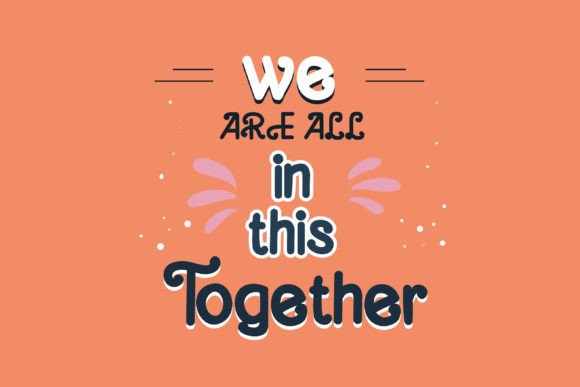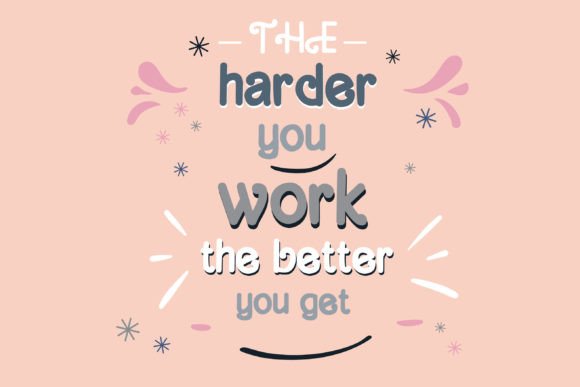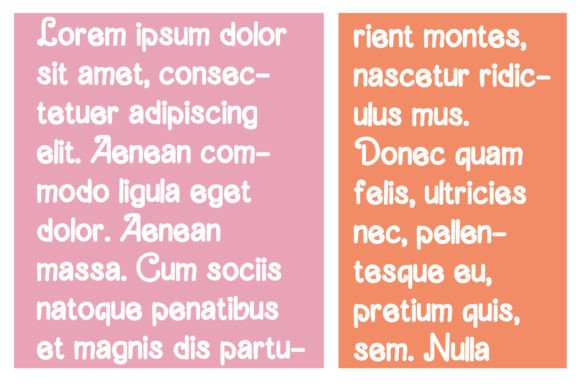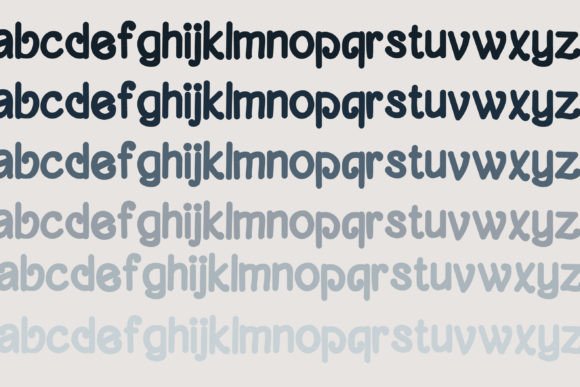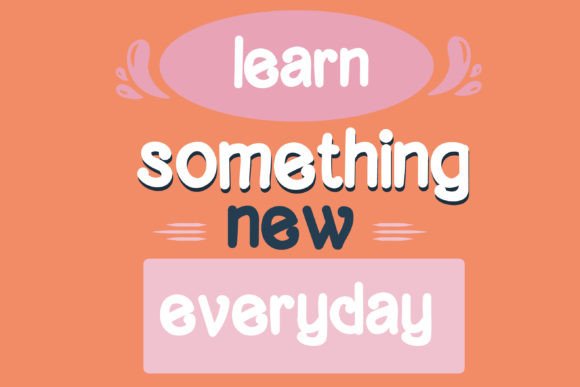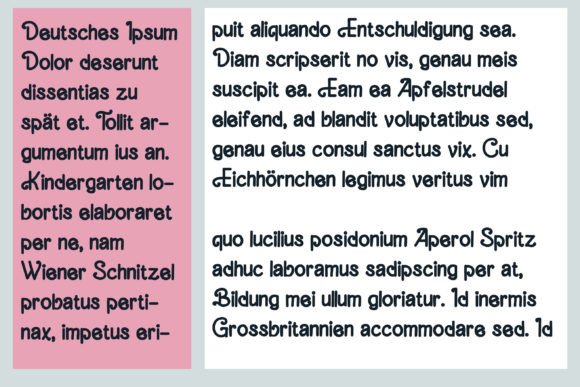
The Charm of Barbershop Font: A Handwritten Print with Flourished Uppercase
Are you a designer or crafter looking for a unique and eye-catching font to add a personal touch to your projects? Look no further than the Barbershop Font, a beautiful handwritten print with a flourished uppercase that’s sure to capture attention. In this article, we’ll explore the characteristics of this lovely font, its uses, and why it’s a great addition to your design toolkit.
What is a Handwritten Font?
A handwritten font is a typeface designed to mimic the look of handwriting. It’s often used to add a personal and informal touch to designs, making it perfect for projects that require a friendly and approachable feel. Handwritten fonts can range from simple and elegant to bold and playful, and the Barbershop Font falls into the latter category.
Characteristics of Barbershop Font
The Barbershop Font is a stunning example of a handwritten font with a flourished uppercase. Its bold and cursive design makes it perfect for headlines, titles, and other applications where you want to make a statement. The font features:
- Flourished uppercase letters with intricate details
- Bold version included for added emphasis
- Handwritten style with a personal and informal feel
Uses of Barbershop Font
The Barbershop Font is versatile and can be used in a variety of design projects, including:
- Invitations: Add a touch of elegance and sophistication to your invitations with the Barbershop Font.
- Greeting cards: Make your greeting cards stand out with a bold and eye-catching font.
- Signage: Use the Barbershop Font for signage, such as storefront signs, menus, and more.
- Digital designs: Add a personal touch to your digital designs, including social media graphics, blog posts, and more.
Why Choose Barbershop Font?
So why choose the Barbershop Font for your design projects? Here are just a few reasons:
- Unique and eye-catching: The Barbershop Font is sure to capture attention with its bold and flourished design.
- Personal touch: Add a personal and informal feel to your designs with this handwritten font.
- Versatile: Use the Barbershop Font in a variety of design projects, from invitations to digital designs.
Tips for Using Barbershop Font
Here are a few tips for using the Barbershop Font in your design projects:
- Use it sparingly: While the Barbershop Font is bold and eye-catching, it can be overwhelming if used excessively. Use it sparingly to add emphasis to key elements.
- Pair it with a simple font: Pair the Barbershop Font with a simple font to create contrast and add visual interest.
- Experiment with colors: Experiment with different colors to find the perfect combination that complements your design.
The Barbershop Font is a beautiful and versatile handwritten font that’s perfect for designers and crafters looking to add a personal touch to their projects. With its flourished uppercase and bold design, it’s sure to capture attention and add visual interest to your designs. Whether you’re creating invitations, greeting cards, or digital designs, the Barbershop Font is a great addition to your design toolkit.